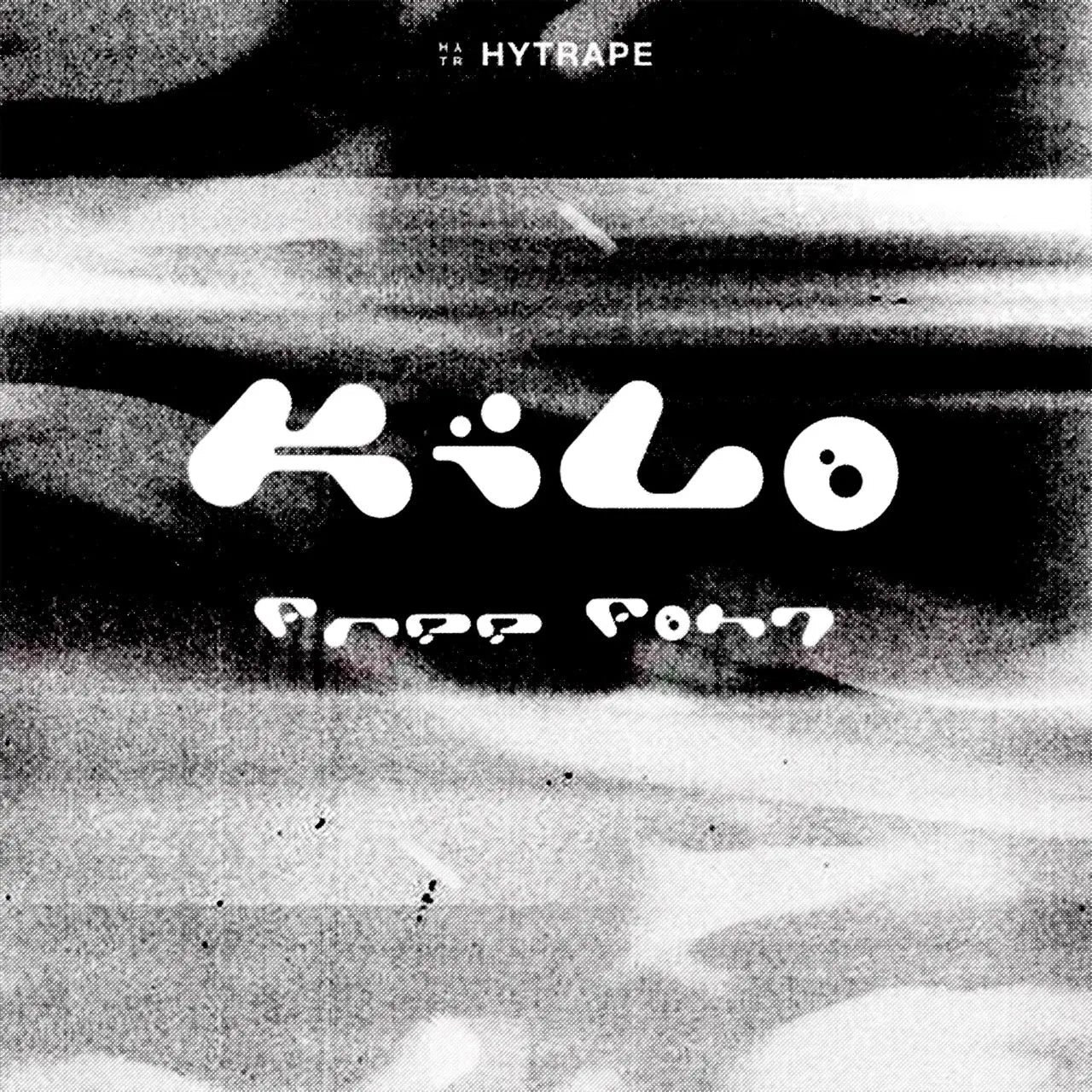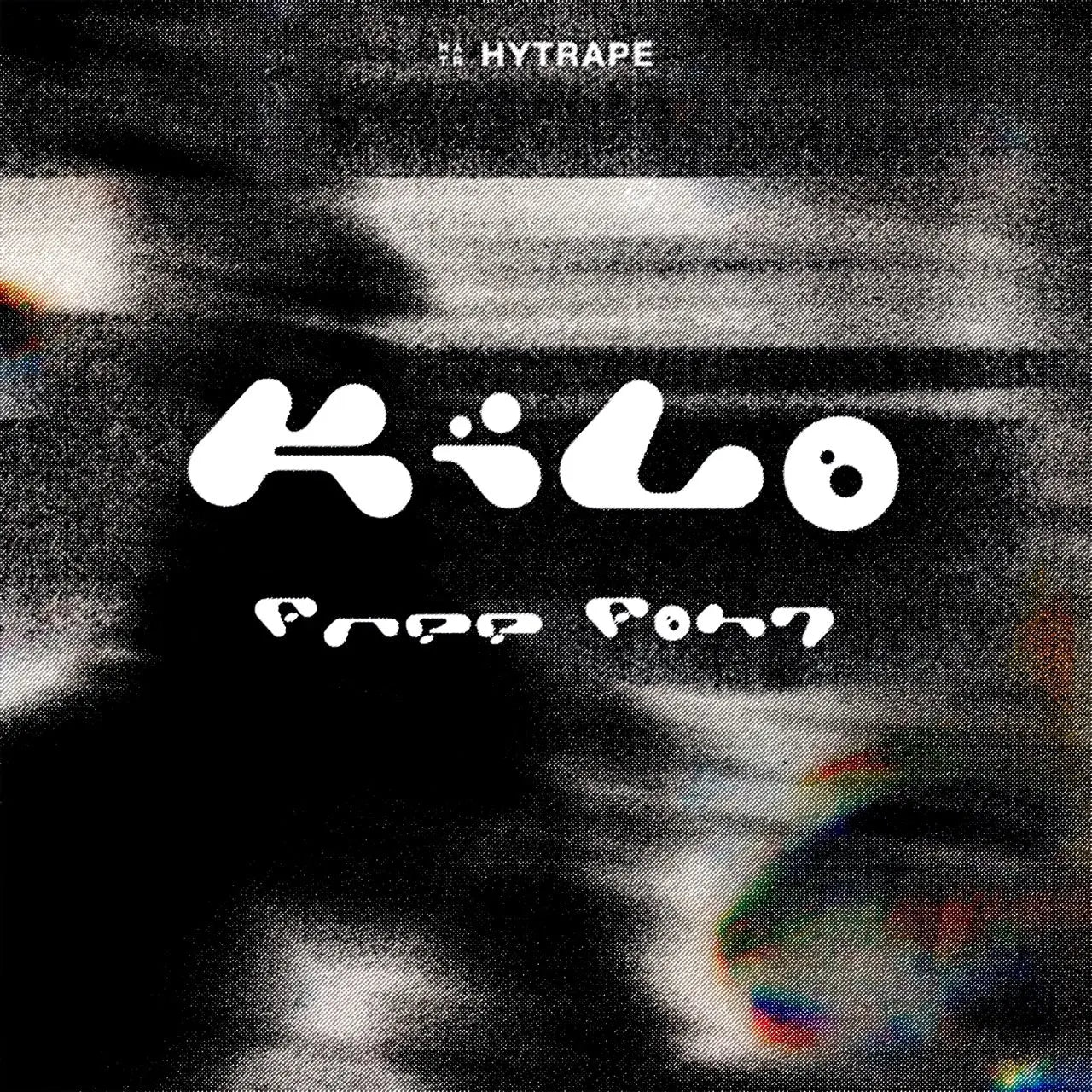
Kilo is a rounded, playful font with inflated letters and organic shapes. It gives headlines a fun, modern tone.
KILO FONT (FREE) is an experimental font designed for professionals looking for unique and original typography.Customer reviews